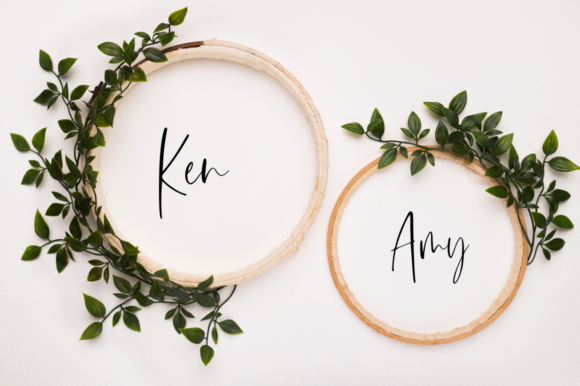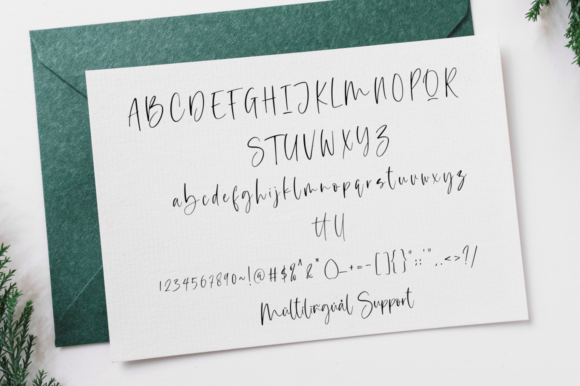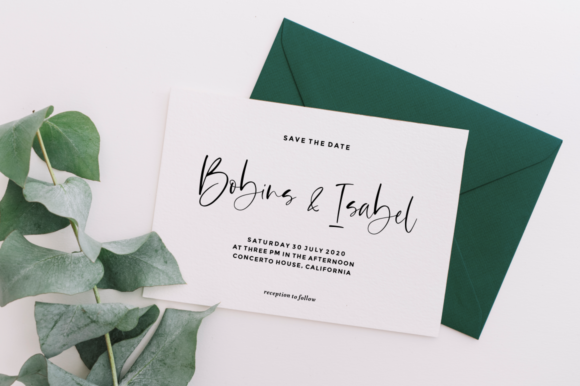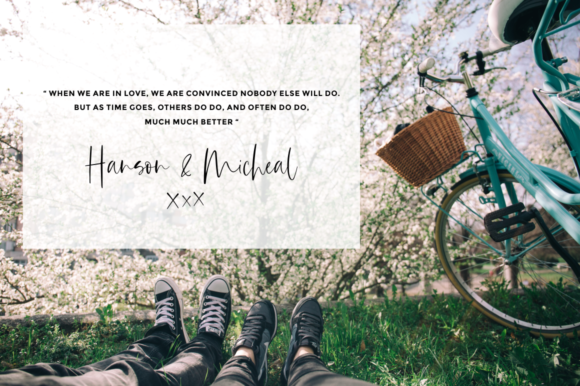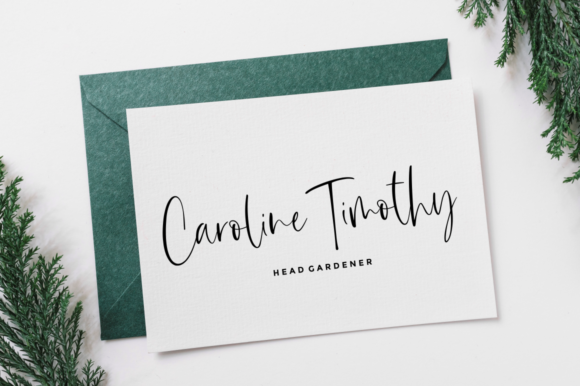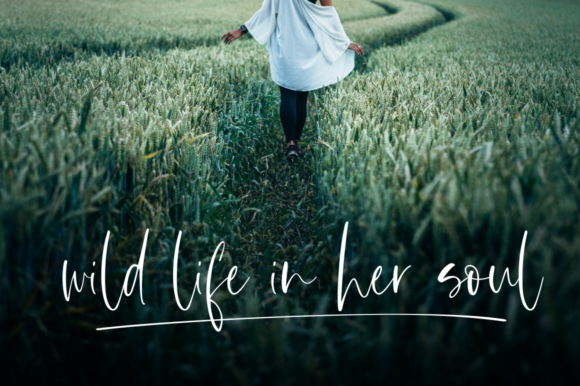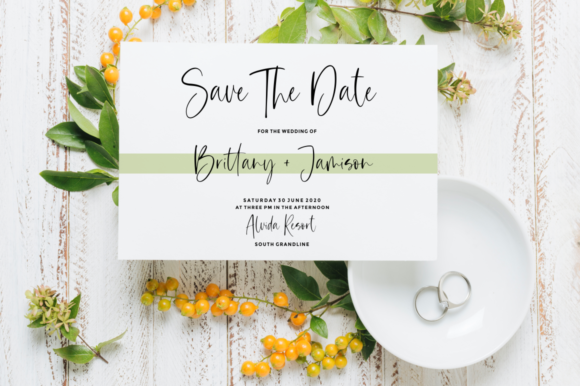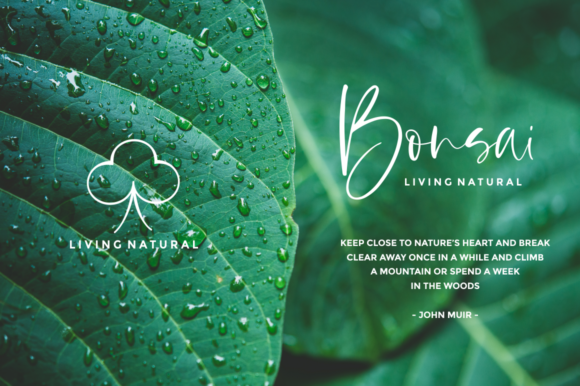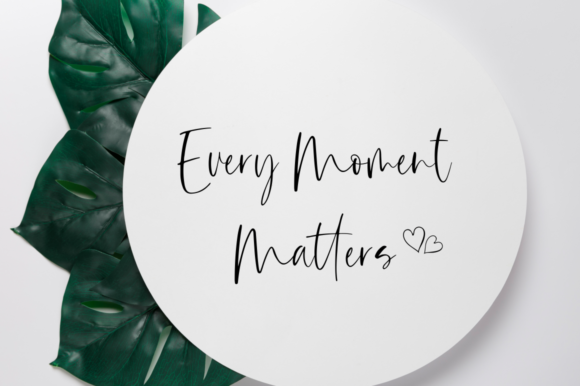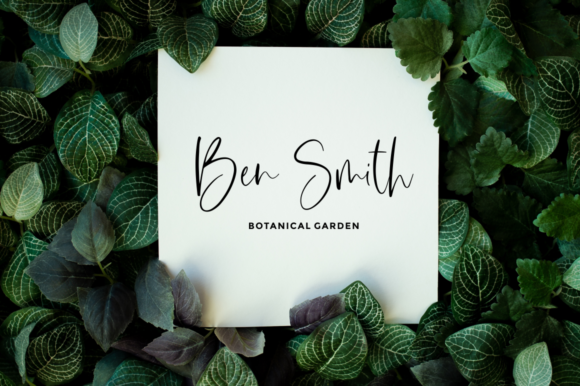
Sundine Font
About Sundine Font
Sundine is a lovely handwritten font. It is the best choice for creating eye catching logos, branding and quotes. Every letter has a unique and beautiful touch, which will make your design come alive!